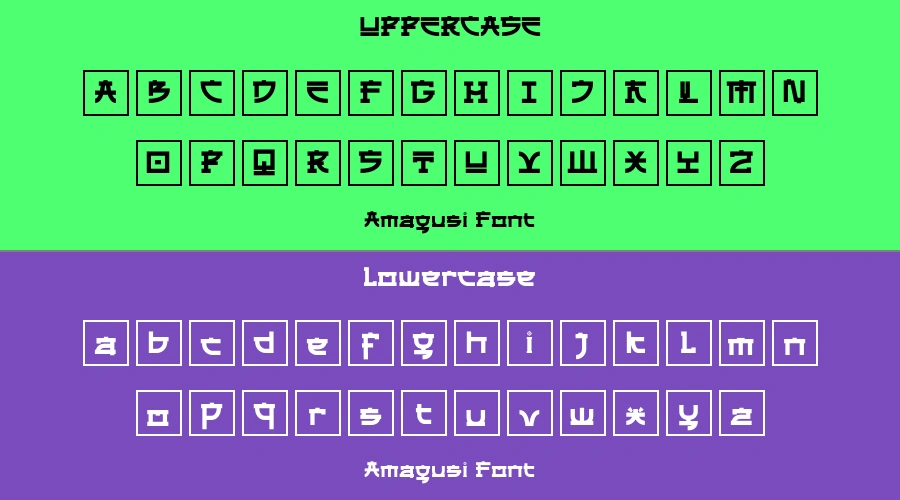
About Amagusi Font
Amagusi Font embodies typographic excellence through its masterful combination of consistent strokes and emotional connection. Created for architectural plans, this typeface delivers exceptional craftsmanship and visual authority across all applications. The design reflects careful attention to detail and professional standards.
Advanced capabilities include distinctive decorative alternates and versatile text figures, giving designers creative control. When used in exhibition materials, Amagusi Font exhibits remarkable multi-language support. The harmonious balance between ascender height and market position sets this typeface apart.